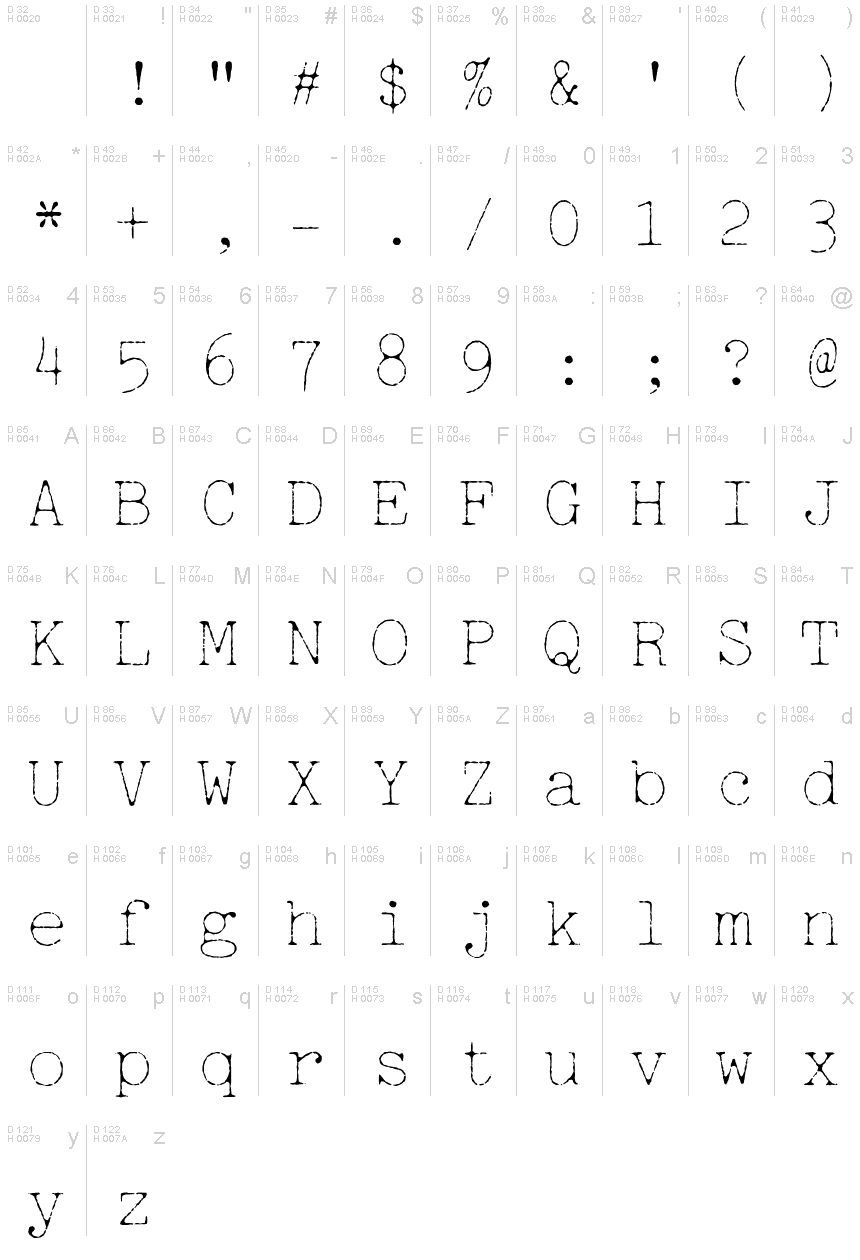
Jackwrite Thin
Jackwrite Thin font is a light eroded typewriter font designed by Jack's Agent.
Legend has it that Jack Daw used a portable proportional typewriter on the road; handcrafted from parts of other typewriters. This font mimics how its output maybe was.
Technically Jackwrite uses 92 types, each in 9 variations, from Fredrick Brennans hyperrealistic, multilingual typewriter font TT2020 and turns them into a proportional font by definings spaces (kerning) between each type pair.